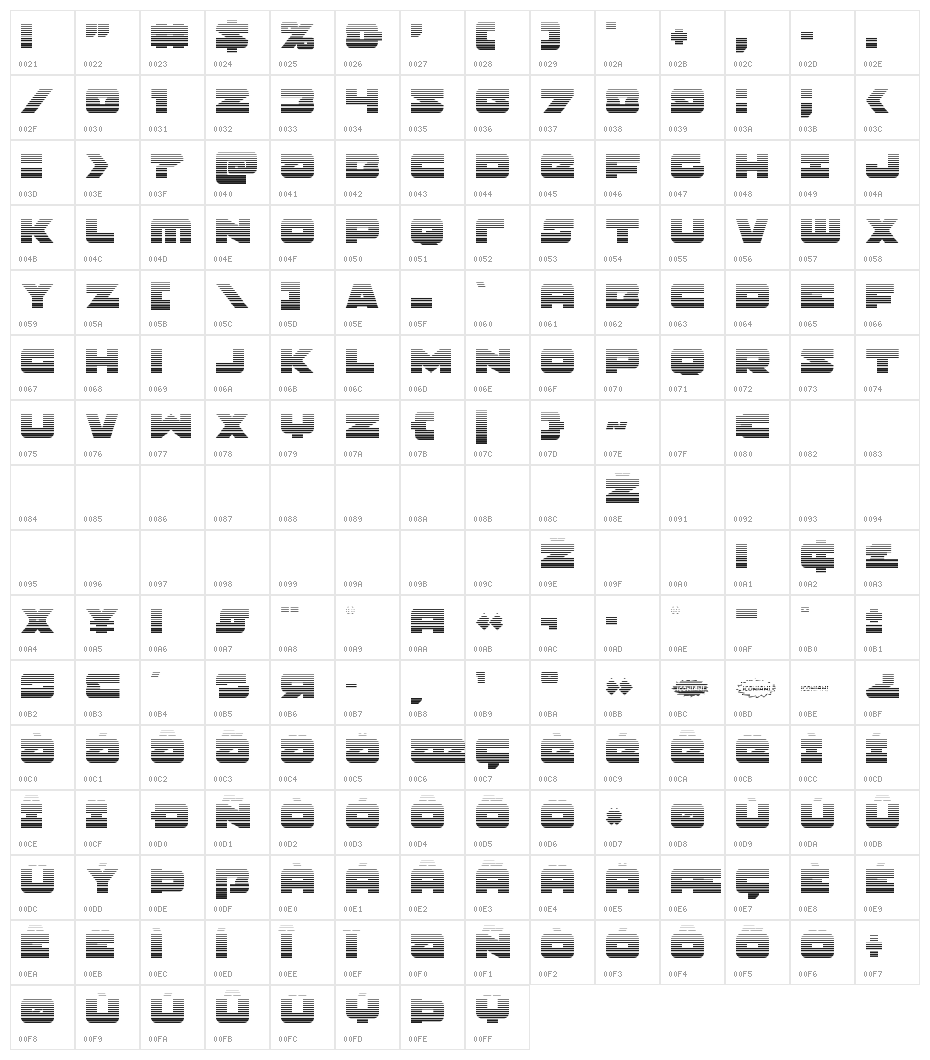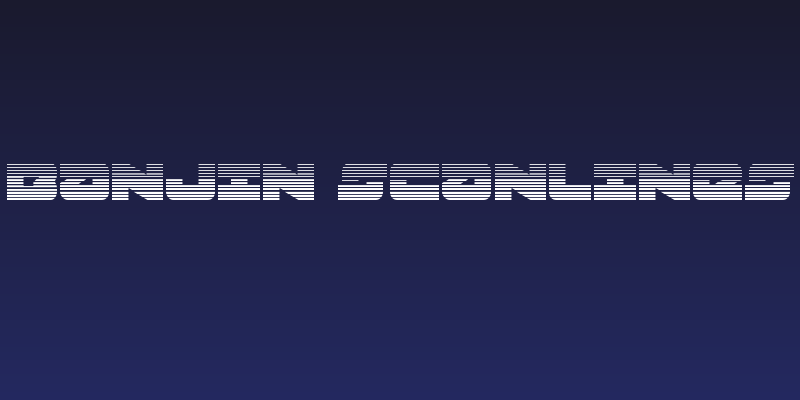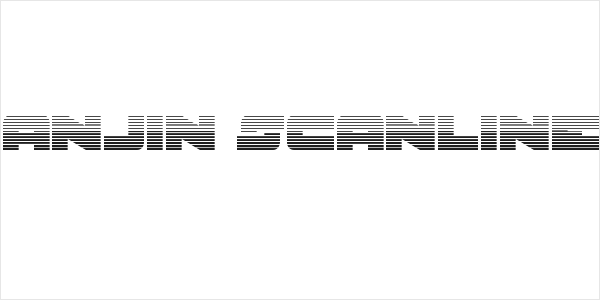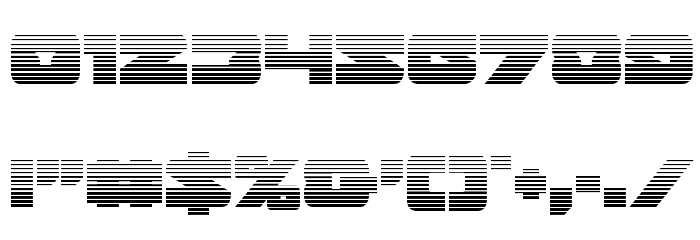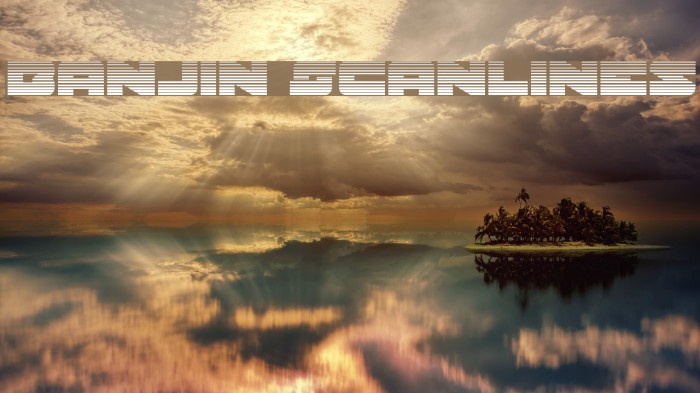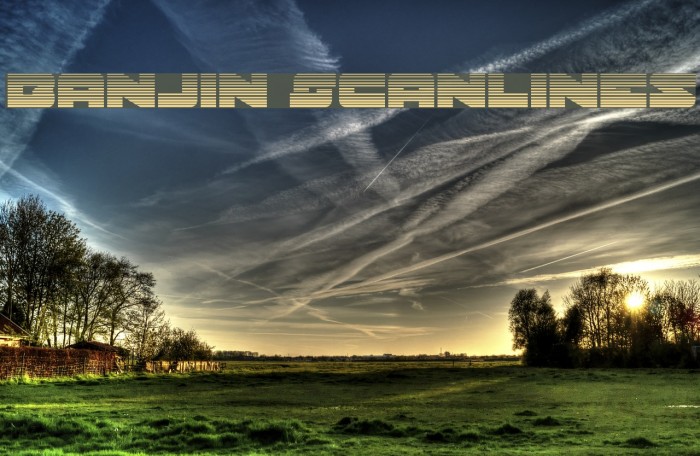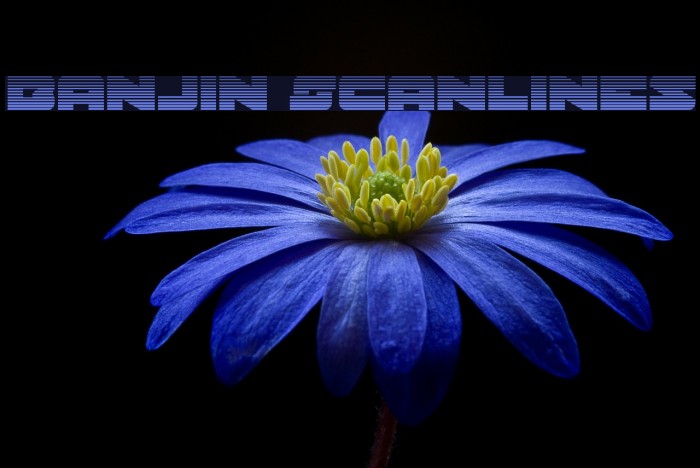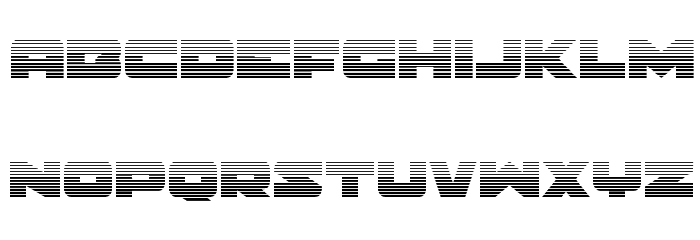
Banjin Scanlines Font
Banjin Scanlines Description
This font features a bold, futuristic design with a unique scanline effect running horizontally through each character. The lines create a sense of movement and digital aesthetics, making it ideal for modern and tech-oriented projects. The uppercase and lowercase letters maintain a consistent style, with sharp angles and geometric shapes. Numbers and special characters are also designed with the same scanline pattern, ensuring uniformity across all glyphs. The font's distinct appearance makes it stand out, perfect for eye-catching headlines or branding that requires a contemporary edge.
| Proposed Projects | Ideal for tech branding, digital media, video game titles, and futuristic posters. |